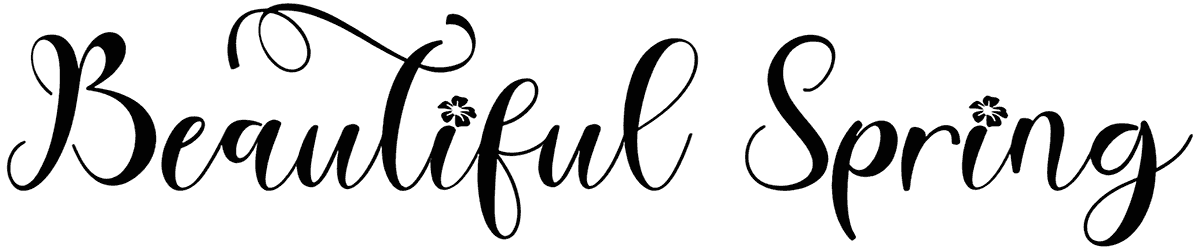
Beautiful Spring Font
If your design needs delicate words, you are in the right place. The Beautiful Spring font’s letters have an elegant cursive style that could be perfect for varied projects, from a wedding card to a tattoo. You have all the characters, and they are waiting to be added to your novel design and make it stunning.